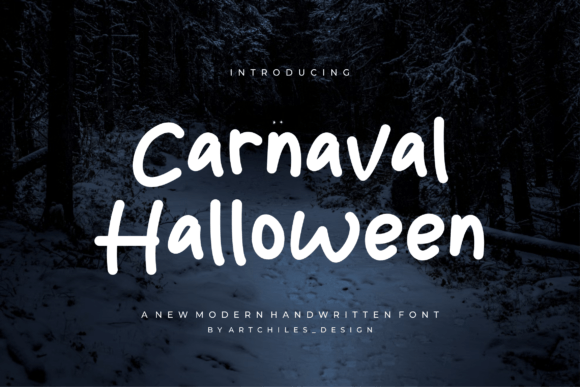
Crafting Spooky Charm with the Carnaval Halloween Font
As the sun sets on a crisp autumn evening, and the air is filled with the sweet scent of pumpkin spice, I find myself itching to unleash my creativity and get into the Halloween spirit. There’s something magical about this time of year, don’t you think? The thrill of conjuring up spooky decorations, crafting hauntingly beautiful invitations, and conjuring up eerie posters that set the tone for a howling good time.
Enter the Carnaval Halloween Font, a delightfully spooky handwritten script font that captures the whimsical essence of Halloween perfectly. With its playful, creepy style, this font is a must-have for designers looking to add a touch of festive flair to their projects. Whether you’re creating party invitations, decorations, or posters, the Carnaval Halloween Font is sure to make your designs stand out with its unique, eerie charm.
- Unique Characteristics: The Carnaval Halloween Font features intricate, hand-drawn designs with a mix of spooky and festive elements, making it perfect for Halloween-themed projects.
Carnaval Halloween Font Review
Overall, I’m impressed with the unique design of the Carnaval Halloween Font. ✨ It has a distinct, playful flair that’s perfect for adding a spooky twist to any project. The font is full of character, with intricate details and bold lines that make it stand out.
The Carnaval Halloween Font is available in a range of weights, from light to bold, which makes it easy to use in a variety of contexts. ✨ The font also includes a range of ligatures and swashes, which add an extra layer of personality to your designs.
- Unique, playful design
- Available in a range of weights
- Intricate details and bold lines
- Ligatures and swashes add personality
- May be too ornate for some designs
- Not suitable for body text due to its decorative nature
- May require additional styling to make it legible
- Some characters may be difficult to read
- ⚠️ The font may not be suitable for use in small sizes or low-resolution applications.
Overall, I’d say the Carnaval Halloween Font is a great choice for designers looking to add a touch of whimsy and personality to their projects. Just be sure to use it thoughtfully and in the right context to get the most out of it.
To get the most out of the Carnaval Halloween font, try using it in combination with bold or italic styles to add emphasis. You can also experiment with different font sizes and colors to create a spooky atmosphere.
The Carnaval Halloween font is perfect for:
- Halloween-themed designs and invitations.
- Spooky or horror-themed